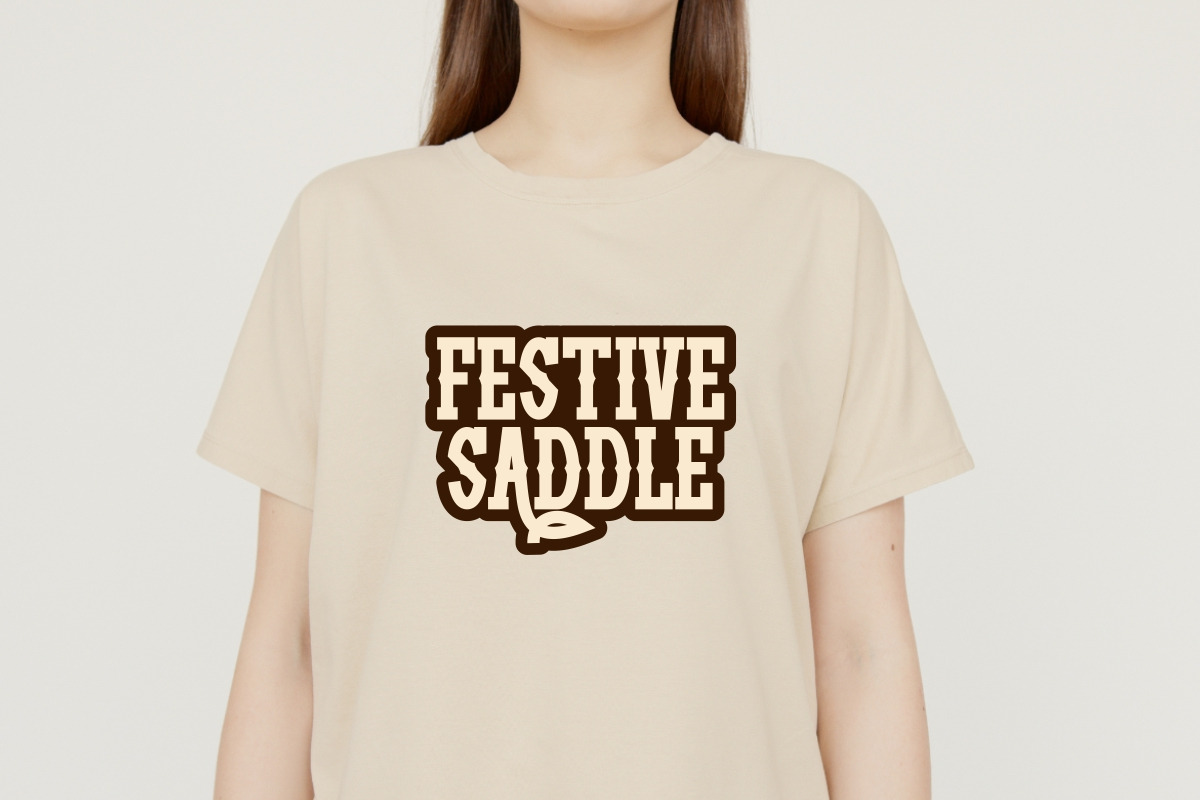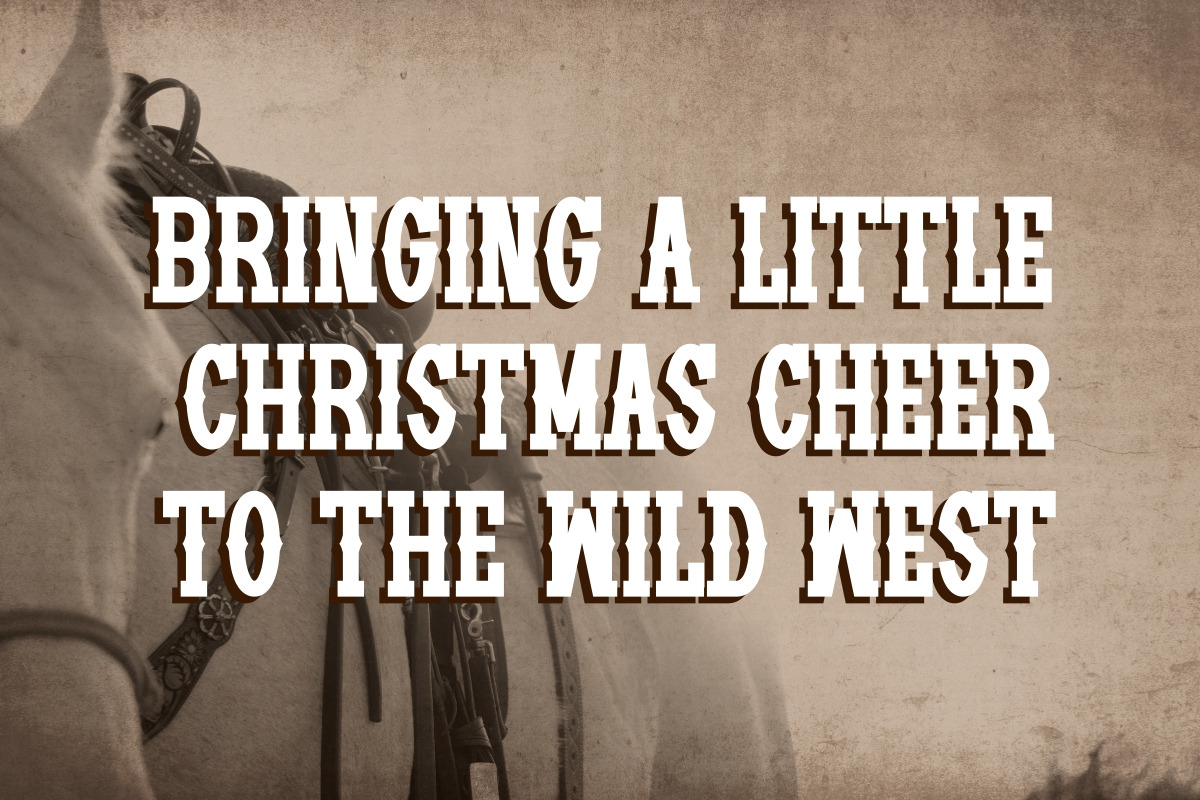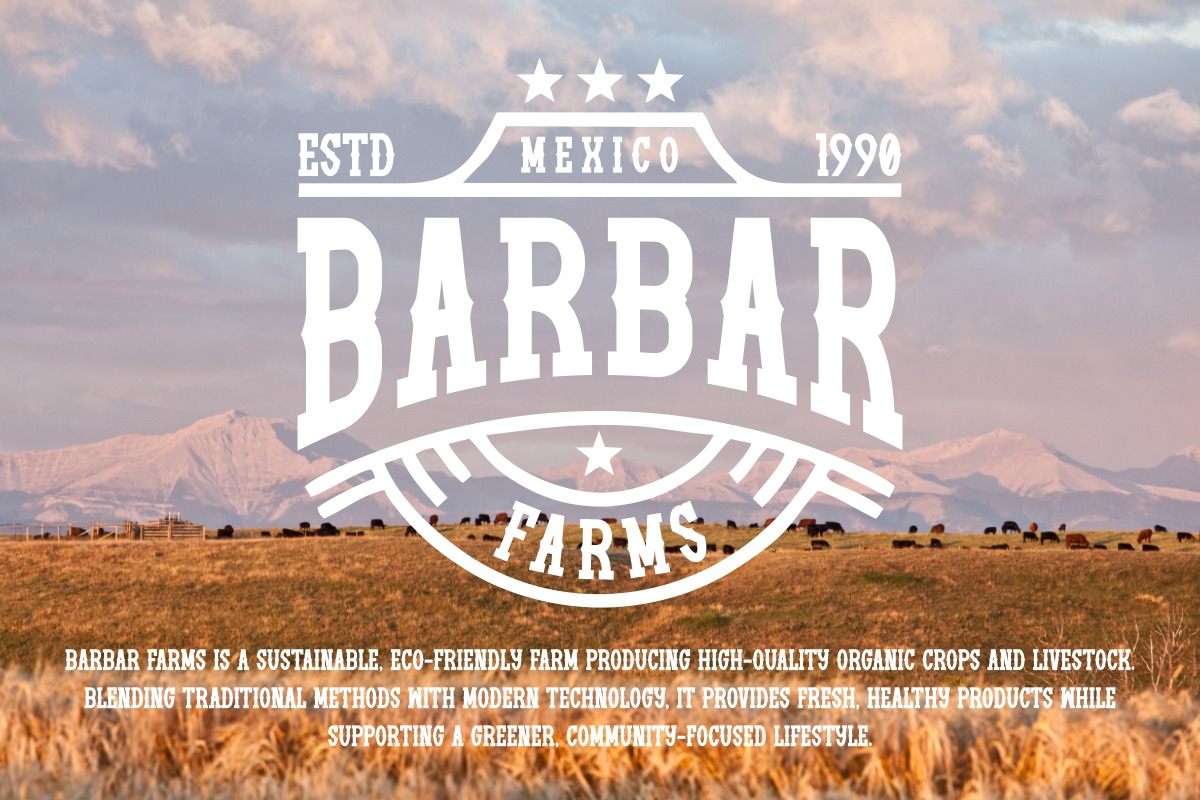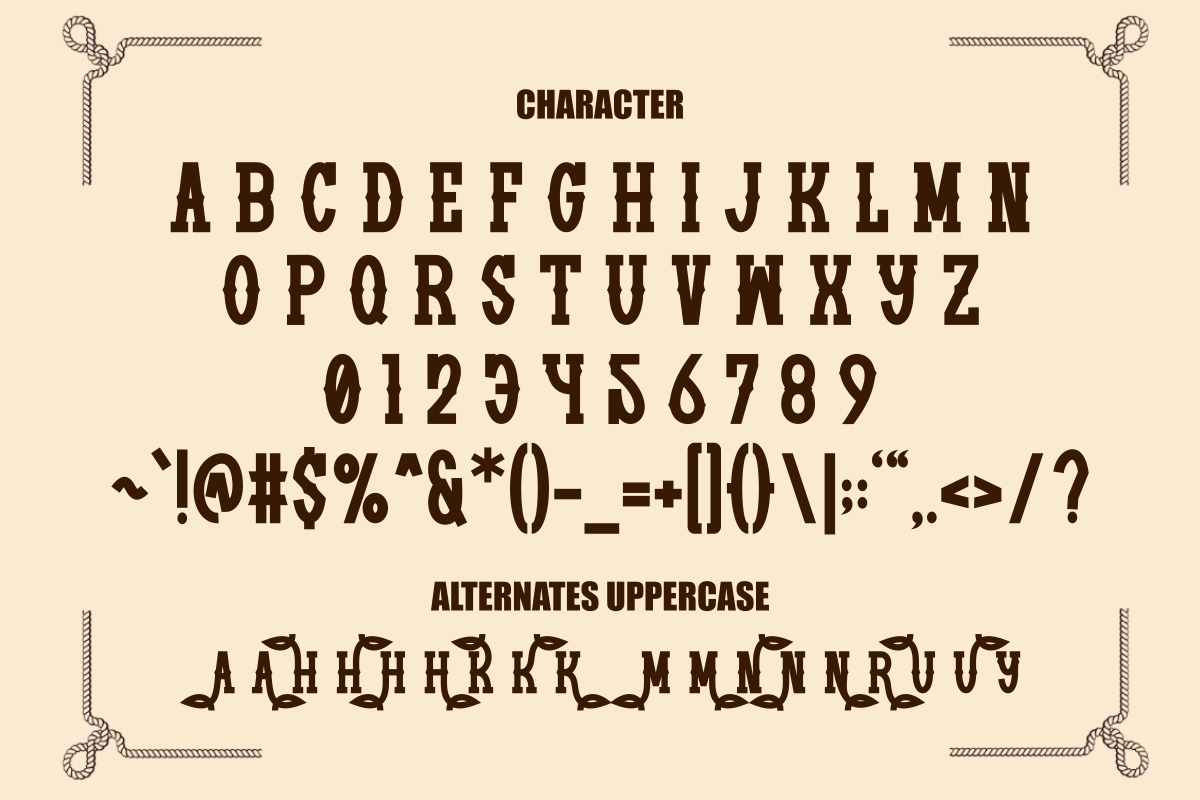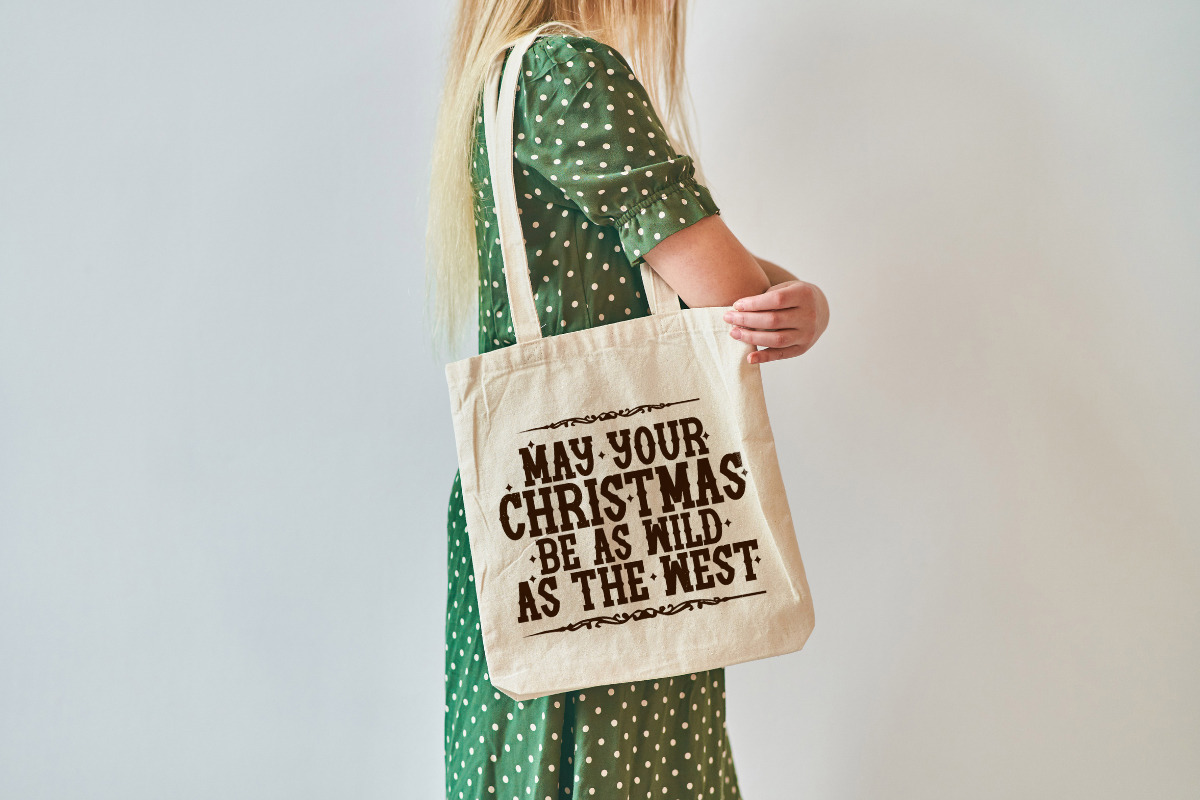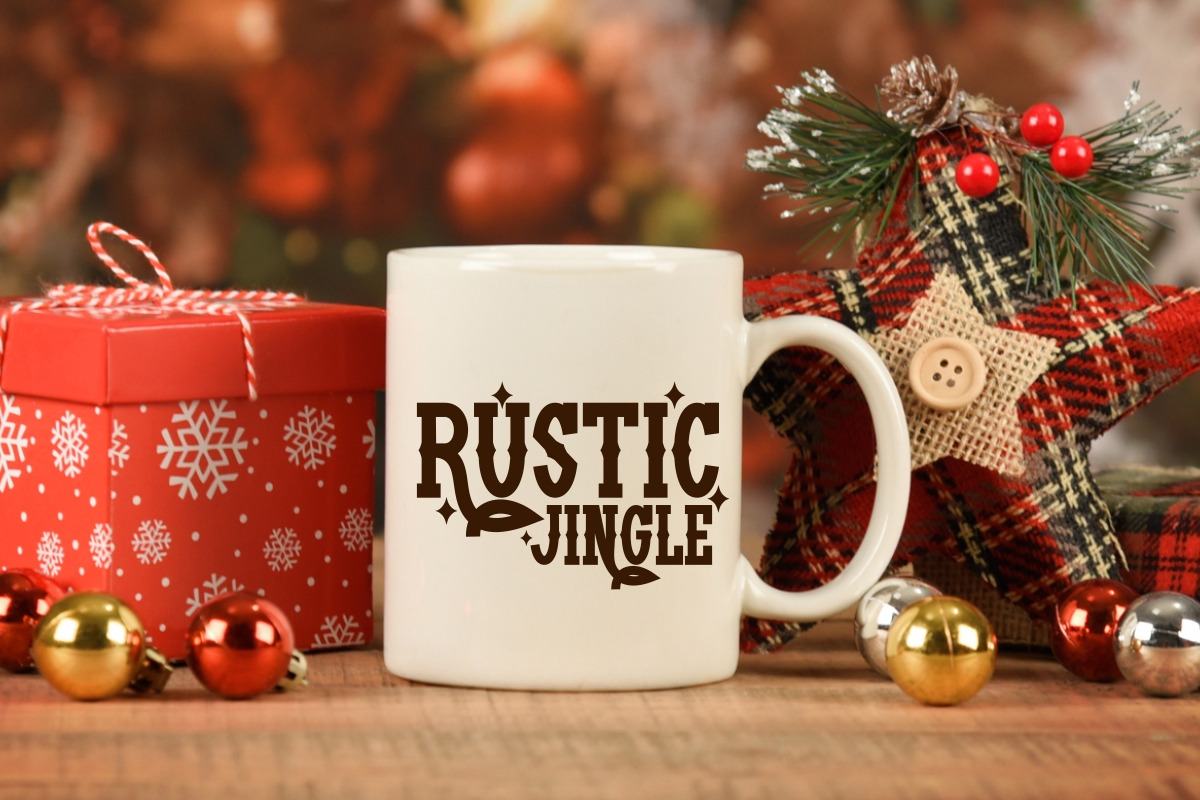
Western Christmas - Bold Slab Serif
Western Christmas is a bold and condensed slab serif font that captures the spirit of the wild west and the festive cheer of Christmas. Inspired by mountain vector design, this font is perfect for creating eye-catching quotes, posters, and apparel designs. Use it to add a touch of rustic charm to your projects.